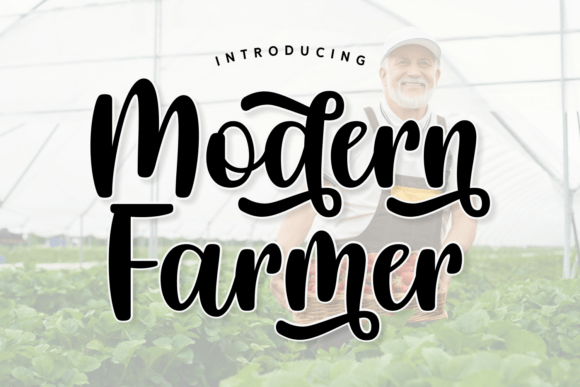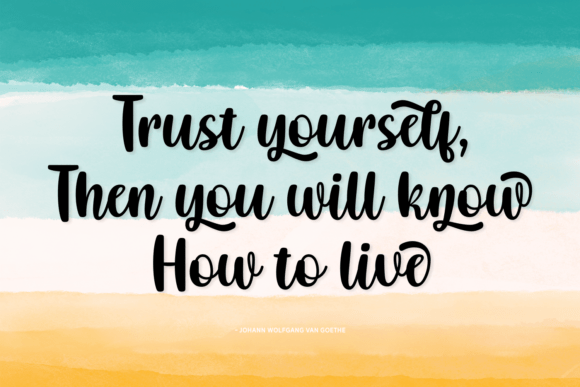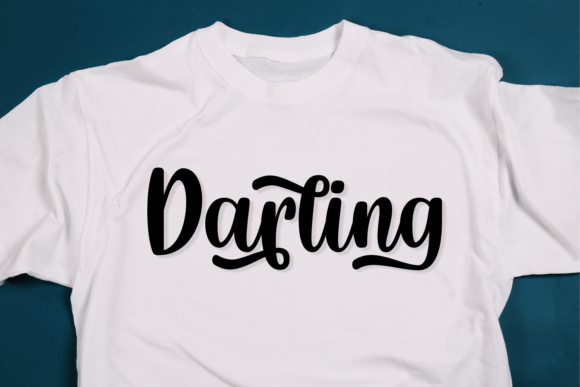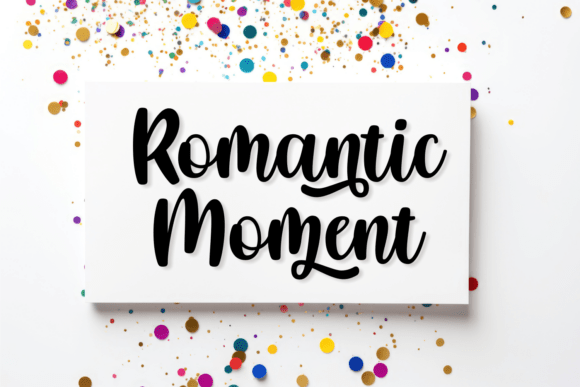
Modern Farmer Font: Rustic Script for Farm-to-Table Branding
About the Modern Farmer Font
We are excited to introduce Modern Farmer Font, a must-have typeface for any serious designer. Modern Farmer is a bold script font with a rustic heart and a fresh modern edge. Its chunky strokes, smooth curves, and eye-catching swashes make it ideal for farm-to-table branding, product packaging, signage, and lifestyle quotes. Whether you’re creating a logo for an organic brand or labeling homemade goods, Modern Farmer delivers a confident, handcrafted feel with a down-to-earth charm.
This font’s bold, rustic character shines in headlines, short-form text, and logos. It’s perfect for branding projects emphasizing handcrafted quality, farm-fresh products, or a vintage-inspired aesthetic. Avoid using it for large bodies of text or UI elements; its weight and swashes can hinder readability in extended use.
Modern Farmer pairs well with clean sans-serifs like Montserrat or Open Sans for a balanced contrast, providing legibility where needed. For a more rustic feel, consider pairing it with a complementary serif like Playfair Display or Lora. A touch of playful contrast can be achieved by using a geometric sans-serif like Futura for smaller text elements.
Its core personality is confident, approachable, and slightly nostalgic, making it suitable for brands seeking an authentic yet modern feel. It conveys a sense of handcrafted quality and rustic charm without appearing dated.
Modern Farmer Font Usage Examples
Modern Farmer Font Example